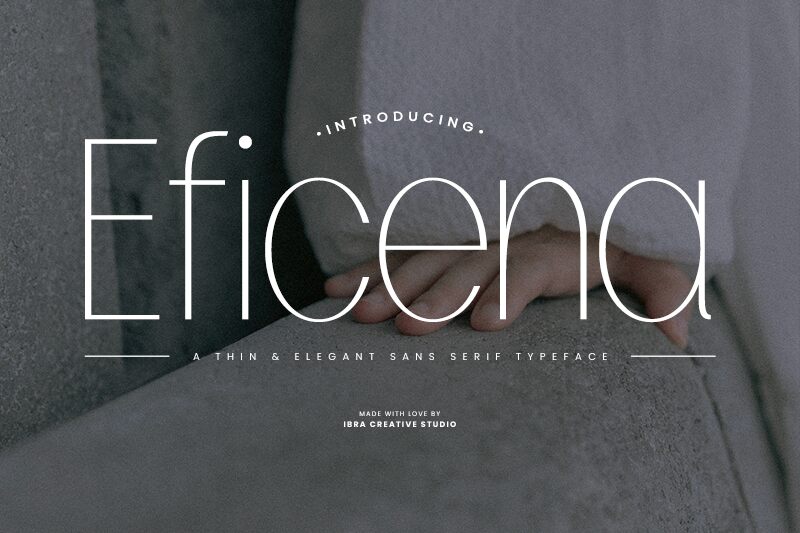
Eficena font by Ibra Creative Studio is a free sans serif font designed to enrich graphic designers’ libraries with a minimalist and sophisticated typeface. Its pronounced modern style carries elegance and refinement. With a contemporary and slightly airy personality, Eficena is definitely going to be a great addition to promote your brand and identity.
More than brand websites, this font is also a great resource for logos, magazine and newspaper titles, advertising campaigns, posters, packaging, and products. These are only a few options as the overall versatility of Eficena suggests infinite options for its use.